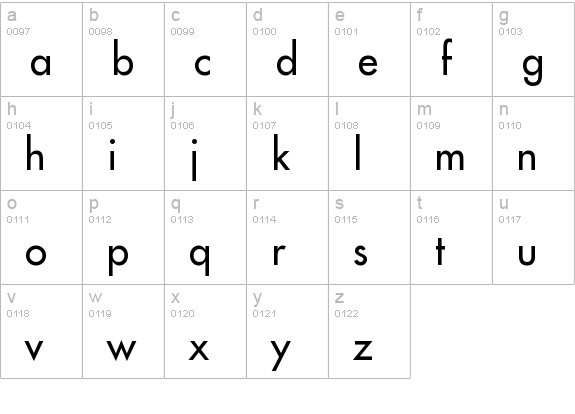
Kudos SSi Font Details
Kudos SSi font is a stunning display typeface that exudes elegance and sophistication. Its sleek lines and modern design make it perfect for a wide range of creative projects, from branding to editorial design. The font's sharp edges and clean letterforms give it a contemporary feel, while still maintaining a sense of classic style. What sets Kudos SSi font apart is not just its aesthetic appeal, but also its versatility. Whether you're creating a sleek logo for a high-end fashion brand or designing a stylish wedding invitation, this font is sure to make a statement. And the best part? Kudos SSi font is available for free download at FontsMarket.com. So go ahead and elevate your designs with this beautiful typeface today!